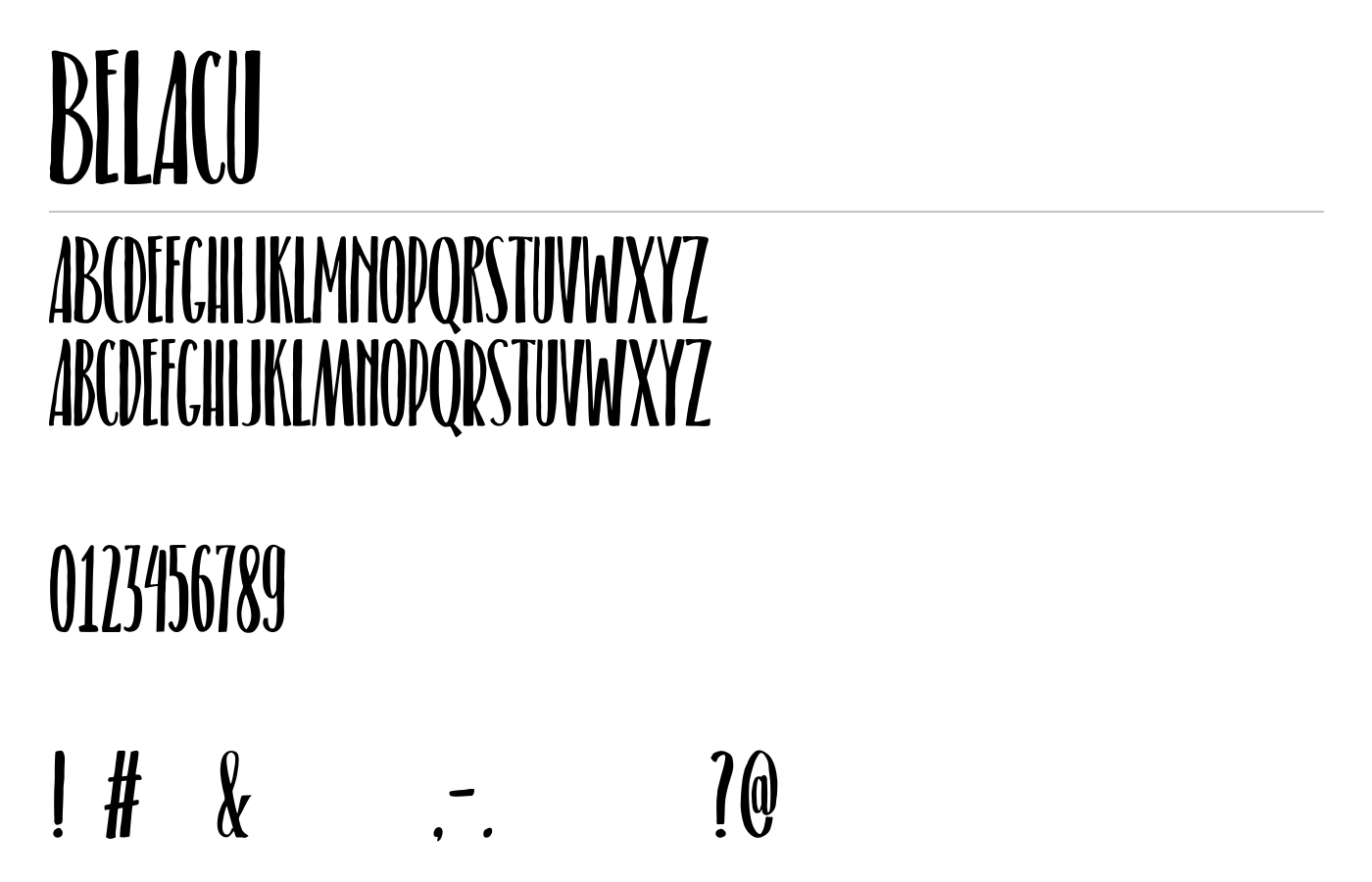
Belacu is a tall, narrow sans serif font with a playful, hand-drawn feel. Its condensed letterforms and slight irregularities give it a quirky, informal personality, making it well suited for fun, creative designs like posters, logos, and headlines that need a unique, eye-catching touch. This font’s distinct style works best where a casual yet bold look is desired, adding character without sacrificing readability.
Belacu Font
About Belacu Font